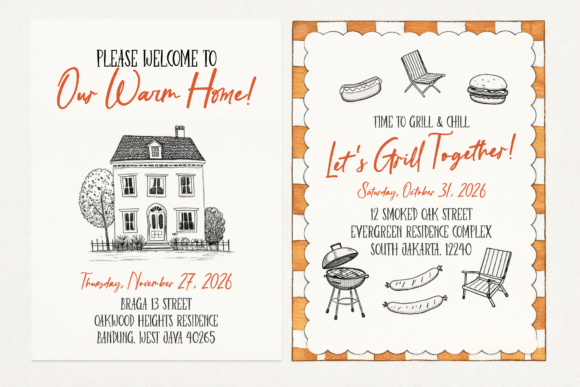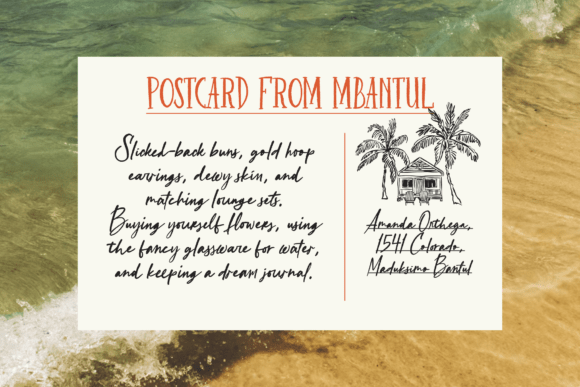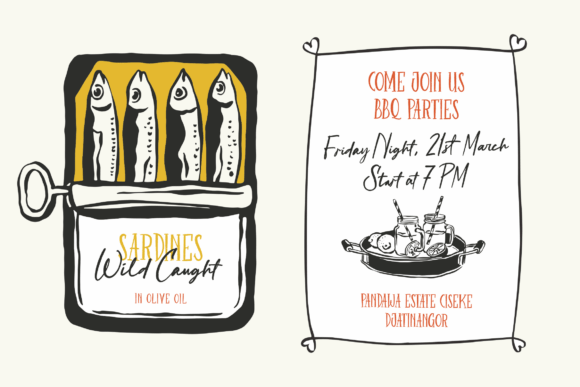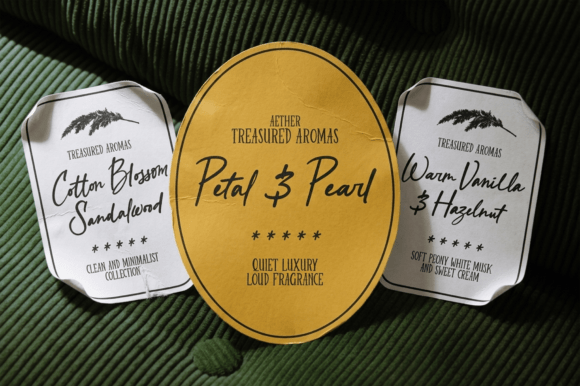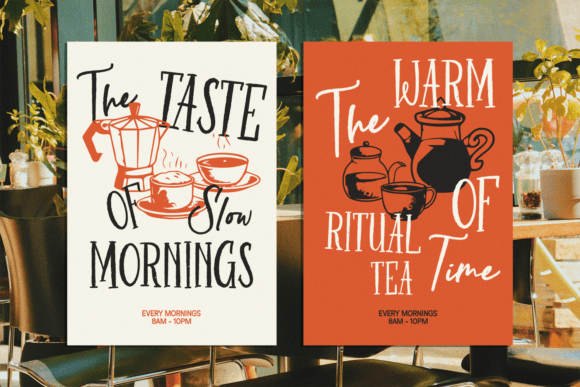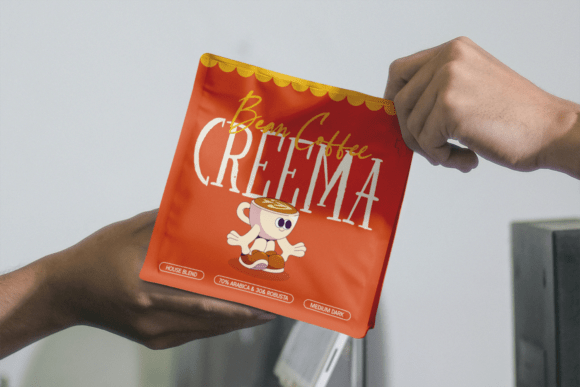
Introducing Autumn in Philadelphia: A Charming Handcrafted Font Duo
As the seasons change and autumn leaves start to fall, designers and crafters are on the lookout for inspiration to infuse their projects with a warm, nostalgic feel. Look no further than Autumn in Philadelphia, a beautiful handcrafted font duo that combines the best of organic handwritten script with rustic vintage serif elements. This delightful font pairing is designed to bring a touch of artisan charm to every project, from café branding to wedding stationery, and beyond.
A Perfect Blend of Elegance and Personality
Autumn in Philadelphia is more than just a font duo – it’s a design solution that brings together two distinct styles to create a unique visual identity. The expressive script strokes of the handwritten font evoke a sense of elegance and sophistication, while the quirky tall serif forms of the vintage font add a playful, whimsical touch. This thoughtful contrast between elegance and personality makes Autumn in Philadelphia the perfect choice for designers looking to create memorable, story-driven designs.
So, what can you create with Autumn in Philadelphia? The possibilities are endless! Here are just a few ideas to get you started:
- Café branding: Create a warm and inviting atmosphere for your coffee shop or bakery with Autumn in Philadelphia’s charming font duo.
- Food packaging: Add a touch of artisanal charm to your food packaging with this beautiful font pairing.
- Wedding stationery: Make your wedding invitations, programs, and other stationery truly special with Autumn in Philadelphia’s elegant script and rustic serif.
- Product labels: Stand out on store shelves with eye-catching product labels that showcase your brand’s personality.
- Editorial layouts: Bring a touch of warmth and sophistication to your editorial designs, from magazines to blogs.
- Handmade merchandise: Add a personal touch to your handmade products, from candles to crafts, with Autumn in Philadelphia’s soulful font duo.
What Sets Autumn in Philadelphia Apart
So, what makes Autumn in Philadelphia so special? Here are just a few reasons why designers and crafters are falling in love with this font duo:
- Handcrafted with love: Autumn in Philadelphia is a truly handcrafted font duo, with each letterform carefully designed to bring a touch of personality and whimsy to your designs.
- Authentic and timeless: This font duo is designed to feel authentic and timeless, making it perfect for designers looking to create designs that won’t date quickly.
- Versatile and adaptable: Whether you’re designing for print or digital, Autumn in Philadelphia is a versatile font duo that adapts to any design style or format.
- Easy to use: With its clear, legible letterforms and flexible design, Autumn in Philadelphia is easy to use, even for designers who are new to working with font duos.
Get Ready to Fall in Love with Autumn in Philadelphia
If you’re looking for a font duo that will bring a touch of warmth, nostalgia, and artisan charm to your designs, look no further than Autumn in Philadelphia. With its unique blend of elegance and personality, this beautiful font pairing is sure to inspire your creativity and help you create designs that feel cozy, story-driven, and memorable. So why wait? Download Autumn in Philadelphia today and start crafting designs that will leave a lasting impression!
Design Tips and Tricks
To get the most out of Autumn in Philadelphia, here are a few design tips and tricks to keep in mind:
- Mix and match: Experiment with different font combinations to find the perfect balance of elegance and personality for your design.
- Play with color: Autumn in Philadelphia looks beautiful in a range of colors, from rich autumnal hues to soft pastels.
- Add texture: Add a touch of texture to your designs with subtle patterns, illustrations, or graphics that complement the font duo.
- Keep it simple: Don’t be afraid to keep your design simple and clean, allowing the beauty of Autumn in Philadelphia to shine through.
With Autumn in Philadelphia, the design possibilities are endless. Whether you’re a seasoned designer or a crafty DIY enthusiast, this charming font duo is sure to inspire your creativity and help you create designs that feel authentic, timeless, and truly special.